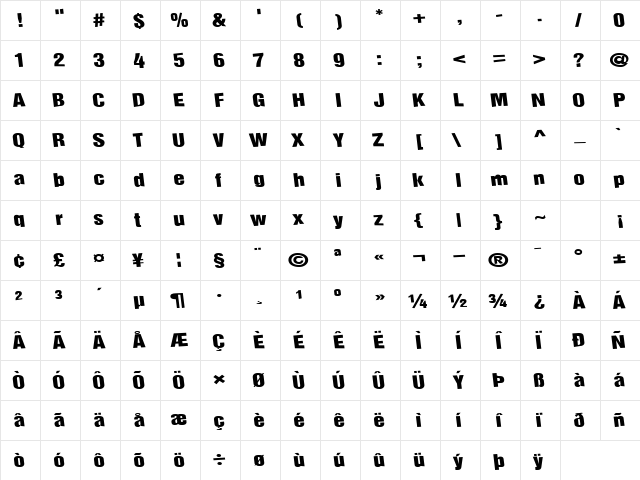
ChildsPlayType64 Regular
Design Context for ChildsPlayType64 Typeface
ChildsPlayType64 trades formality for fun, with bouncy, characterful letterforms that bring warmth and energy to any project.
Font Pairing: Pairs well with a rounded or humanist sans for body copy, maintaining the friendly tone without relying on ChildsPlayType64 to carry extended reading.
Pro Tip: Avoid using ChildsPlayType64 for long passages of text — it works best for headlines, labels, and short calls to action.